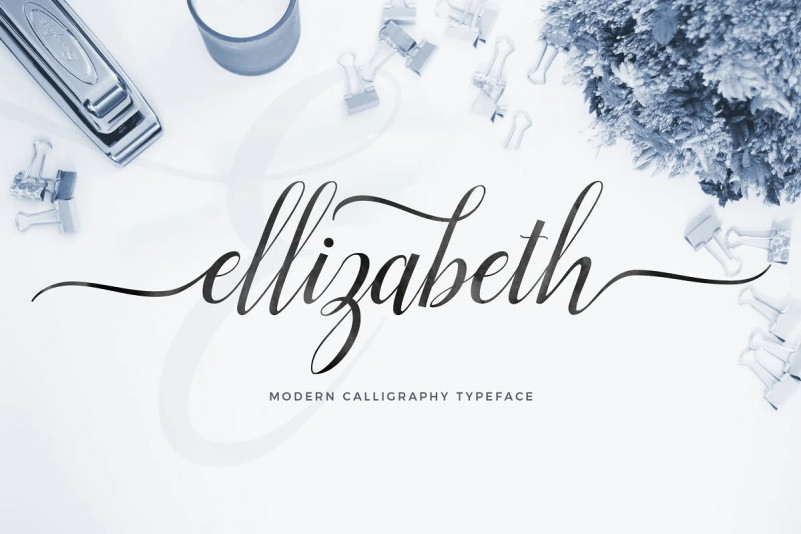
Elizabeth Script Font Free
You will get a nice typeface calligraphy, it will make your design more professional and beautiful. Introducing Elizabeth Script Font! Elizabeth Script designed and shared by Unicode. Elizabeth is a script typeface beautiful calligraphy and modern with inreguler baseline. This font is suitable for a wide range of products each project, such as wedding invitations, greeting cards, correspondence, and various other purposes and many more.